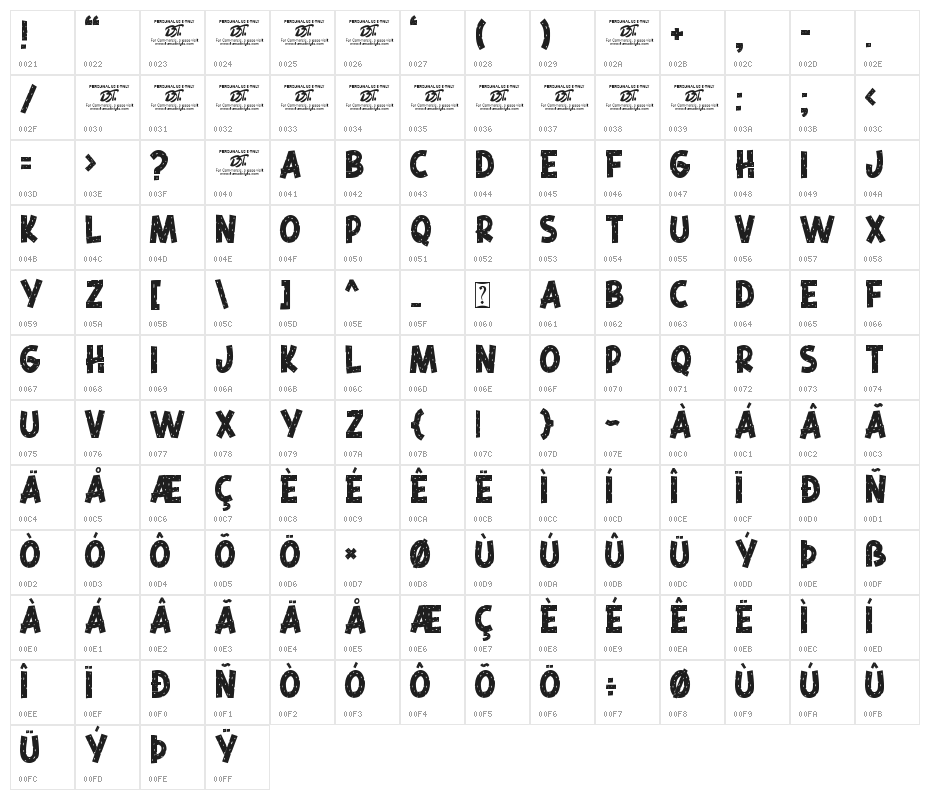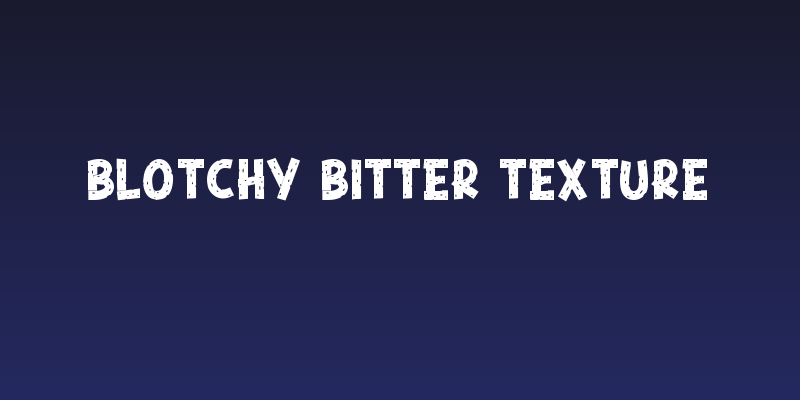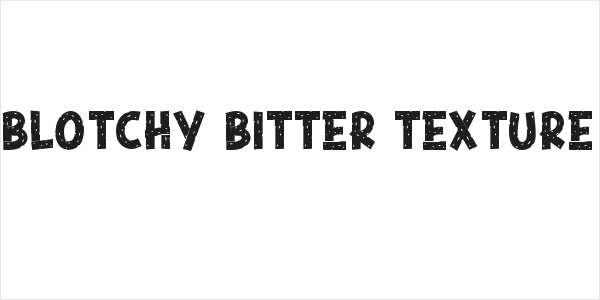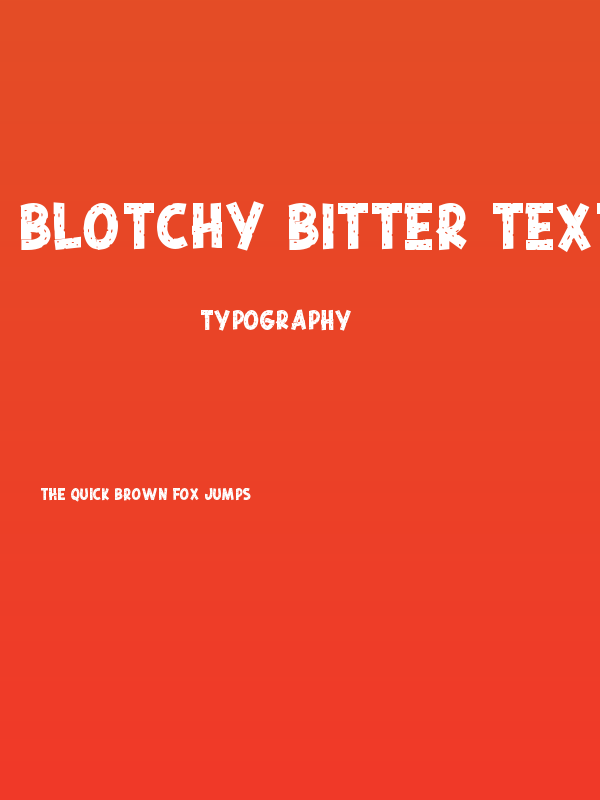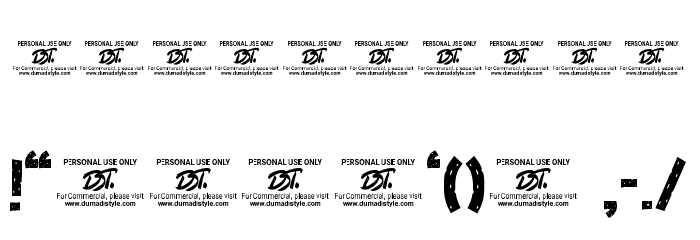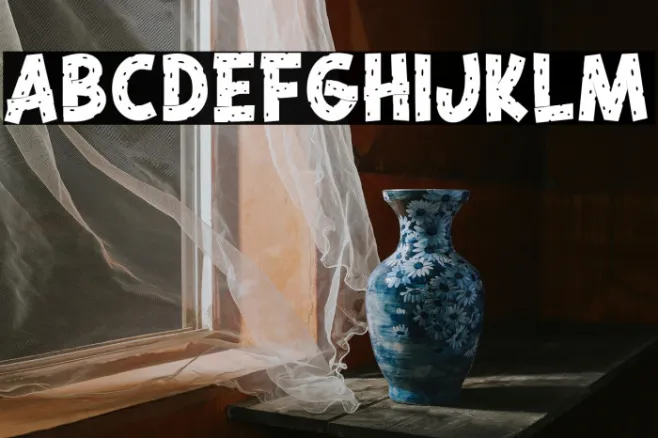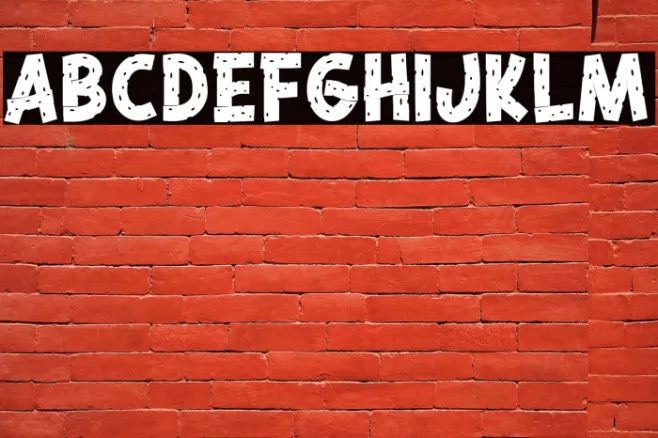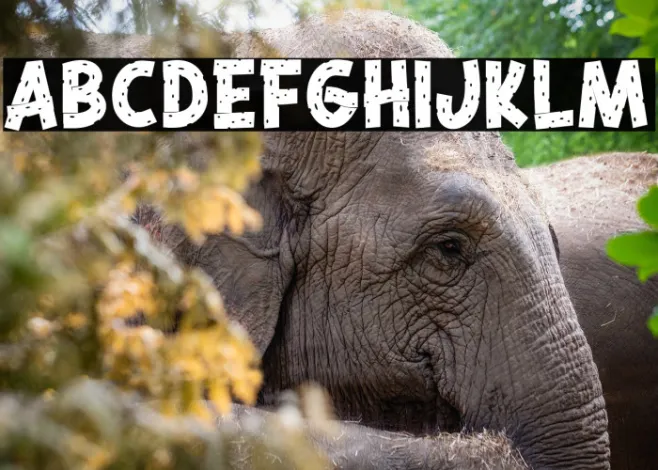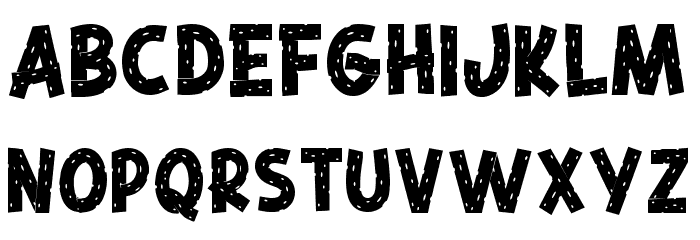
Blotchy Bitter Texture Font
Blotchy Bitter Texture Description
This font features a bold and playful design with a blotchy texture that adds a unique, handcrafted feel. The letters are slightly irregular, giving them a dynamic and energetic appearance. The uppercase and lowercase characters maintain a consistent style, with rounded edges and a slightly condensed form. The texture within each character resembles a speckled pattern, creating a visually interesting effect that stands out. This font is ideal for projects that require a fun and informal touch, such as children's books, posters, or creative branding. The overall style is decorative and modern, making it suitable for eye-catching headlines and logos.
| Proposed Projects | Children's books, posters, creative branding, eye-catching headlines, logos. |